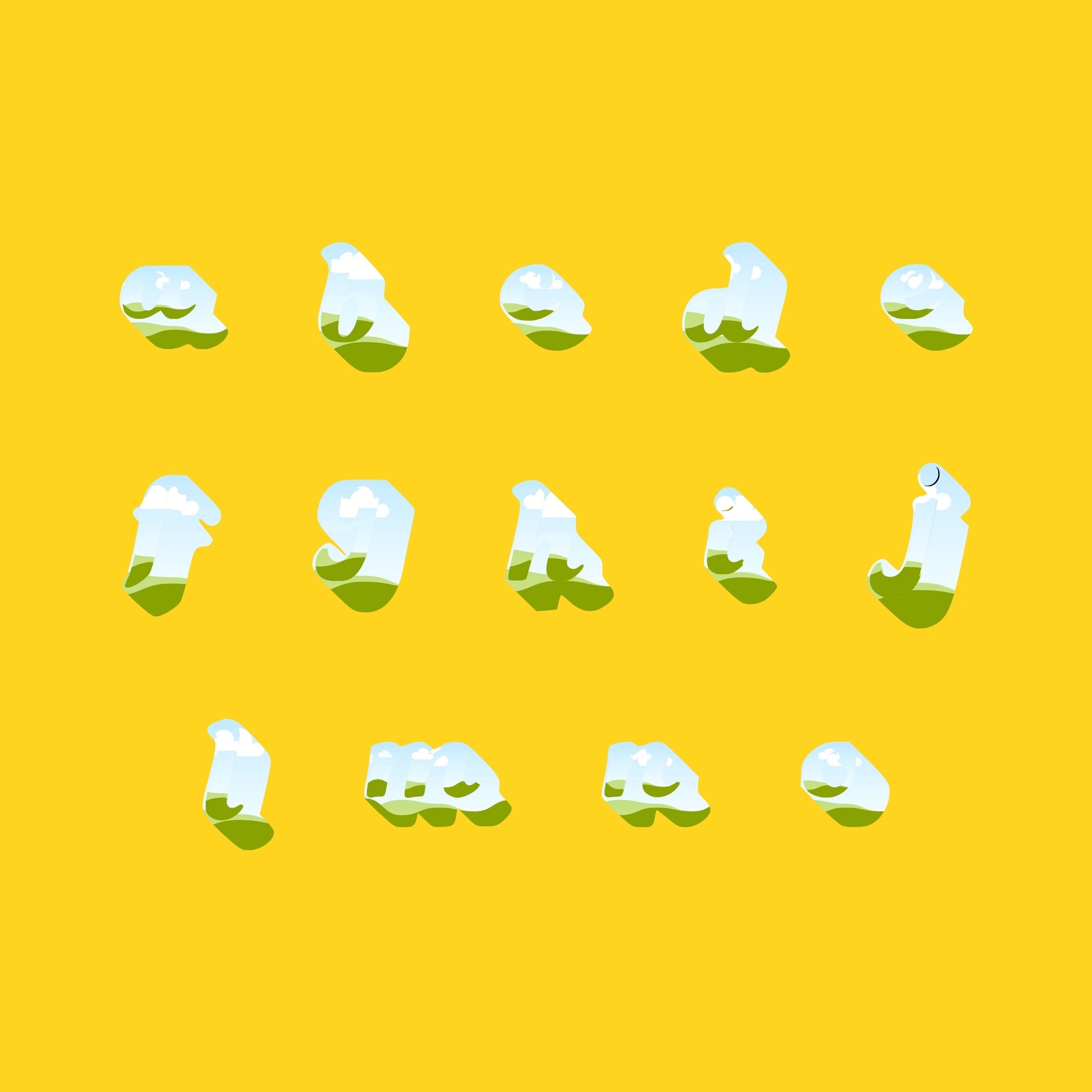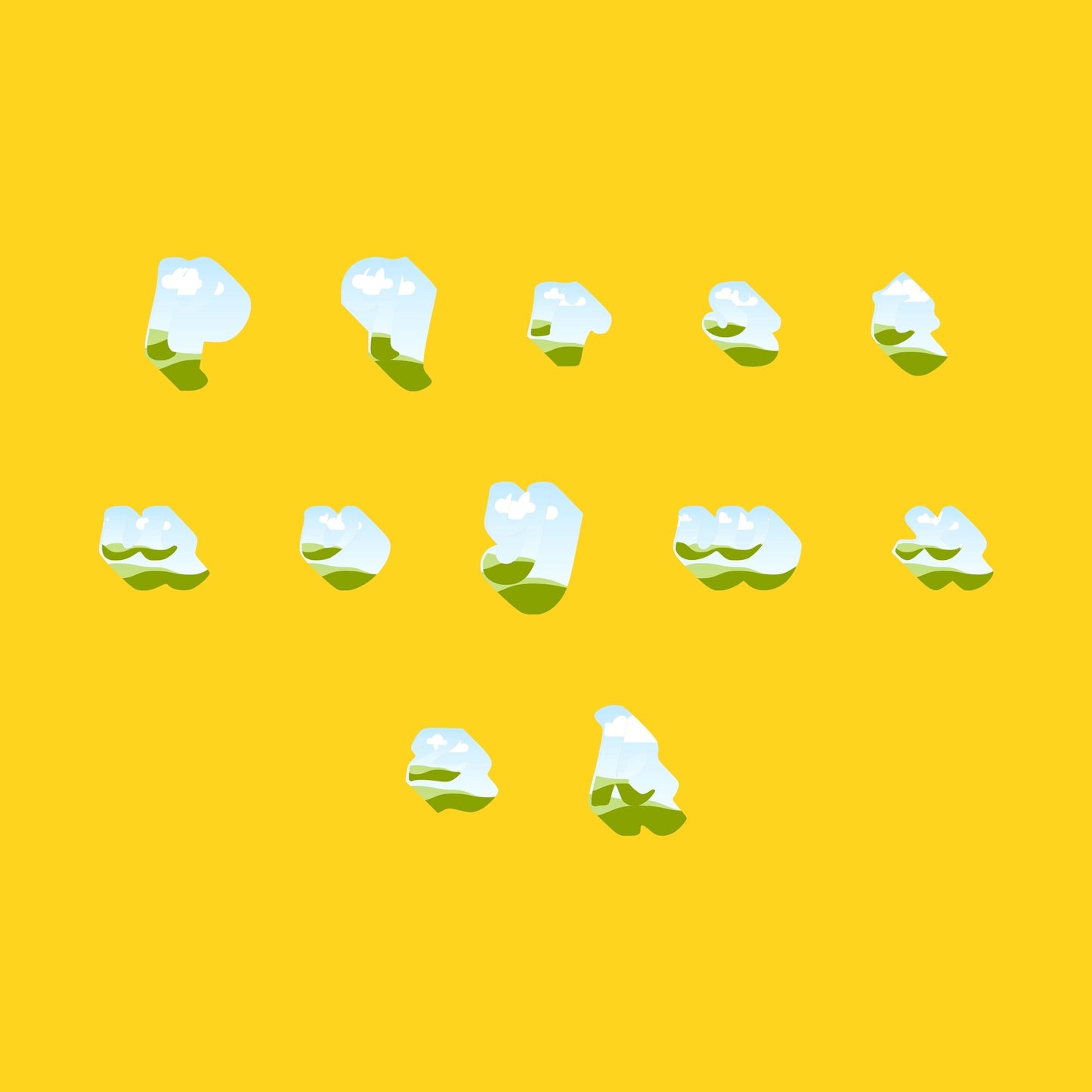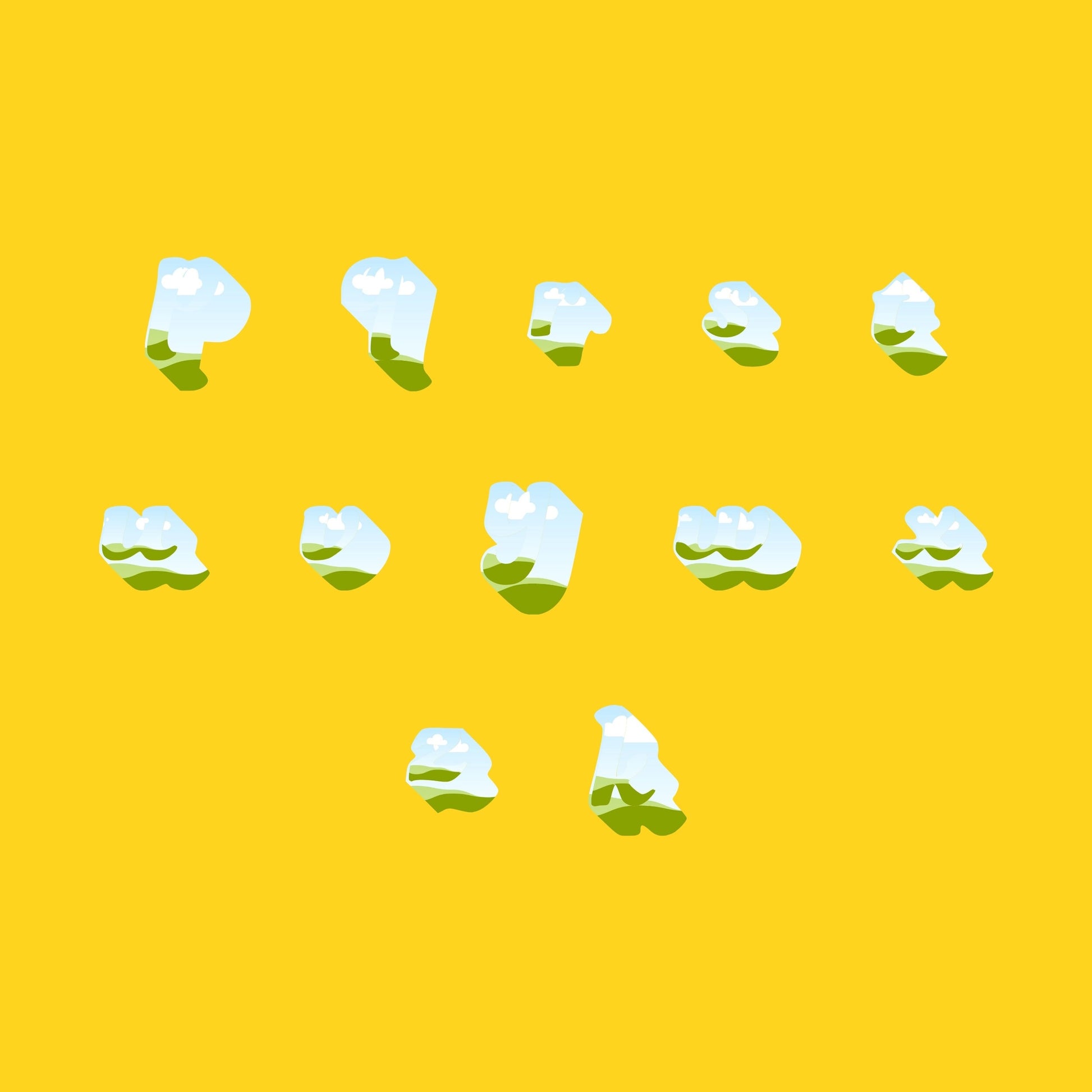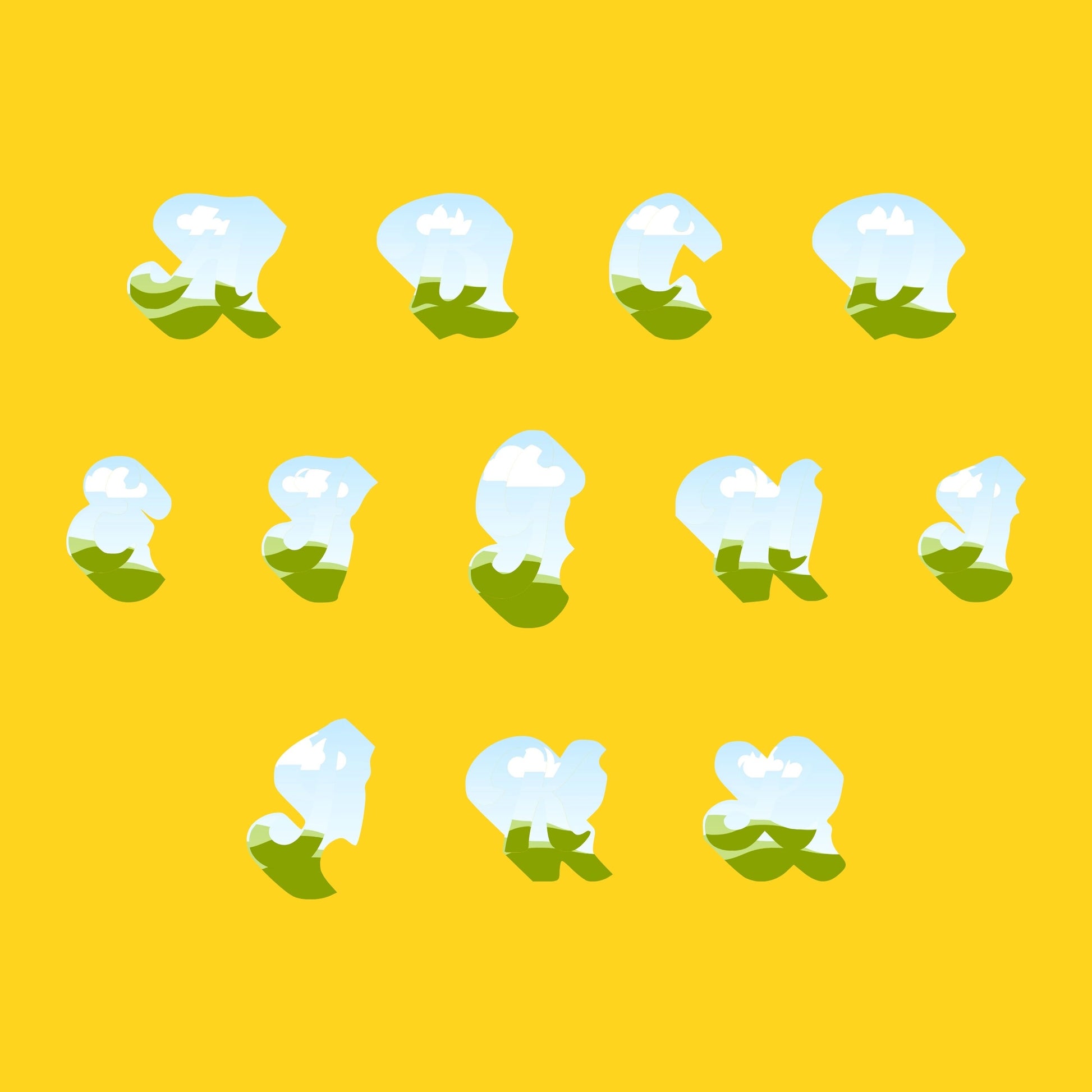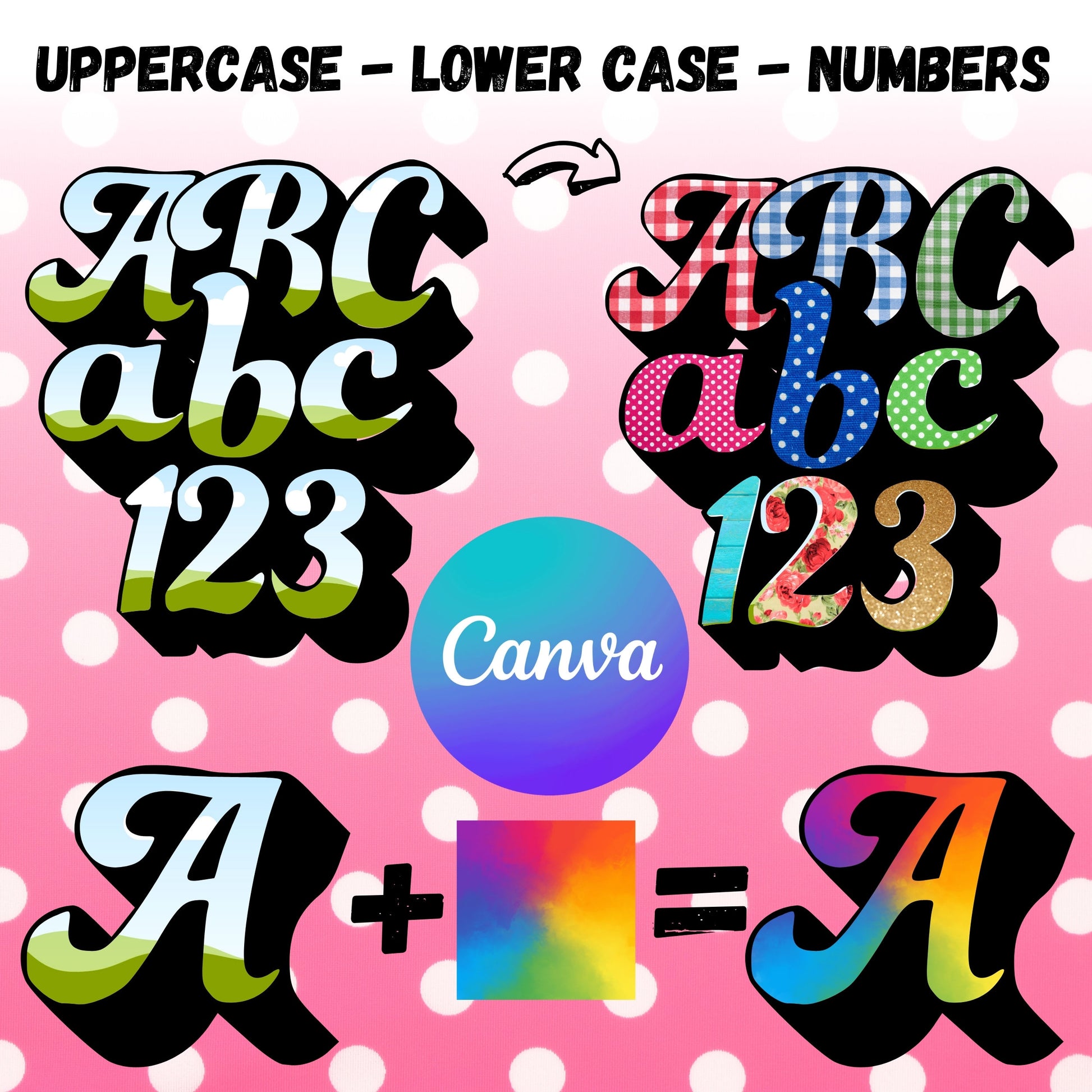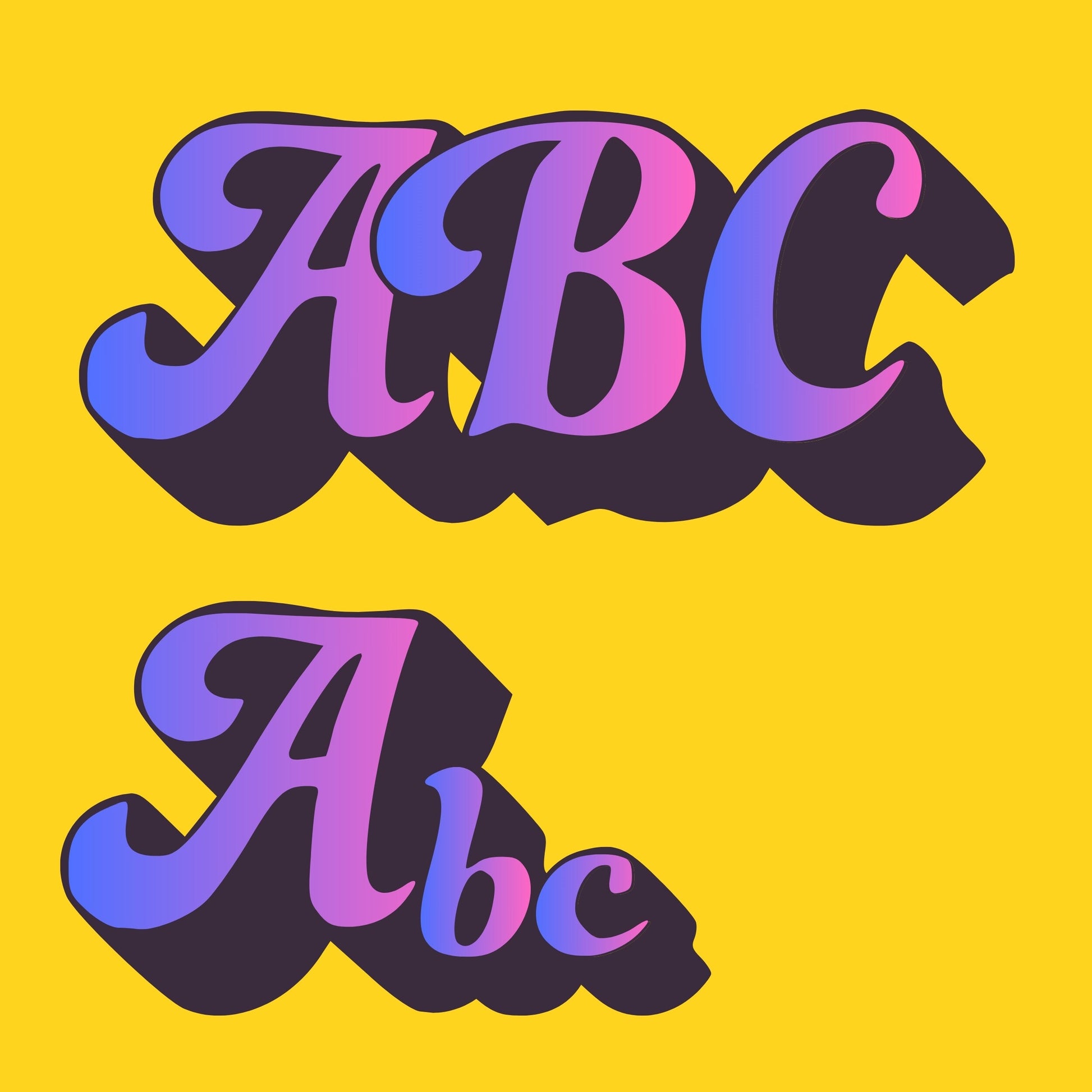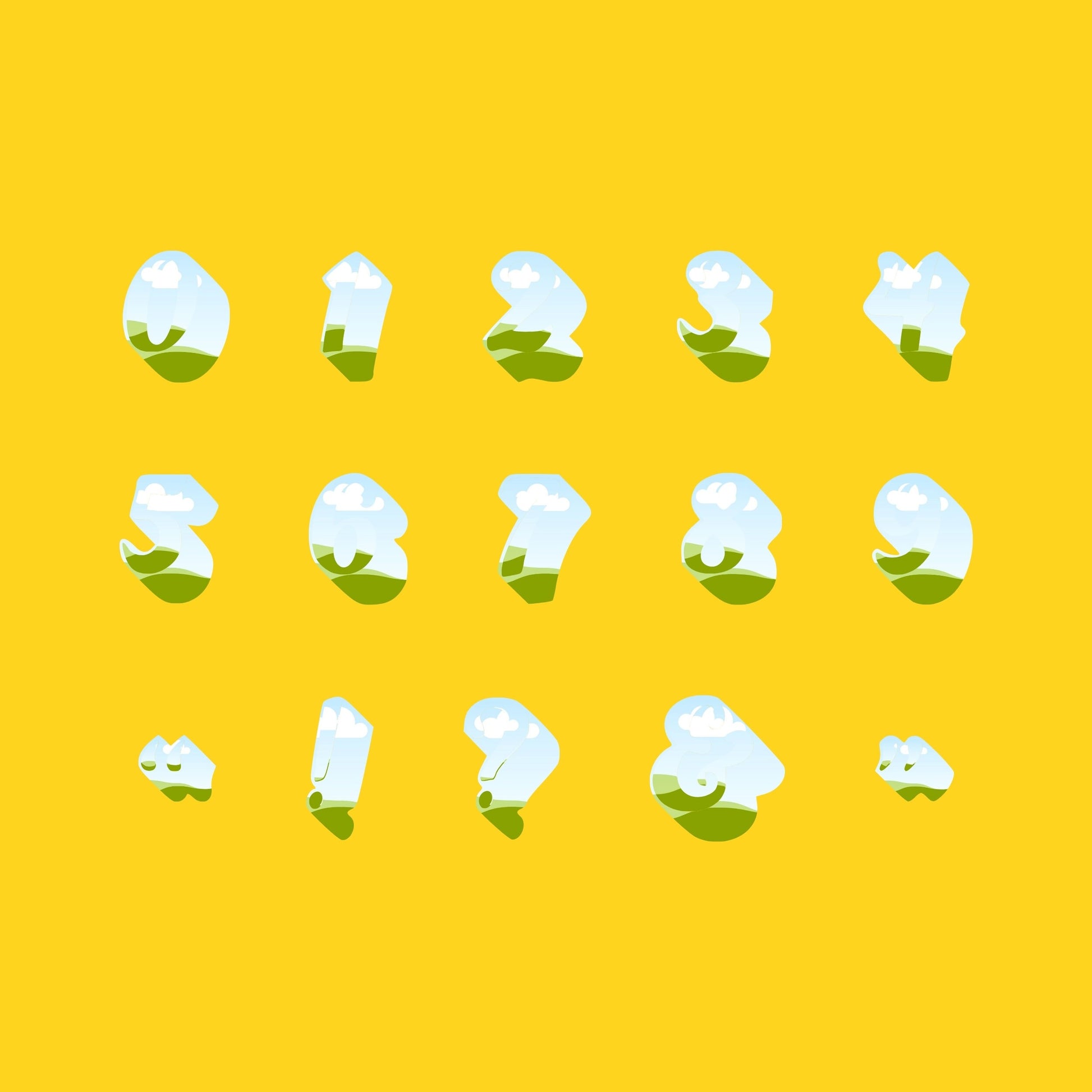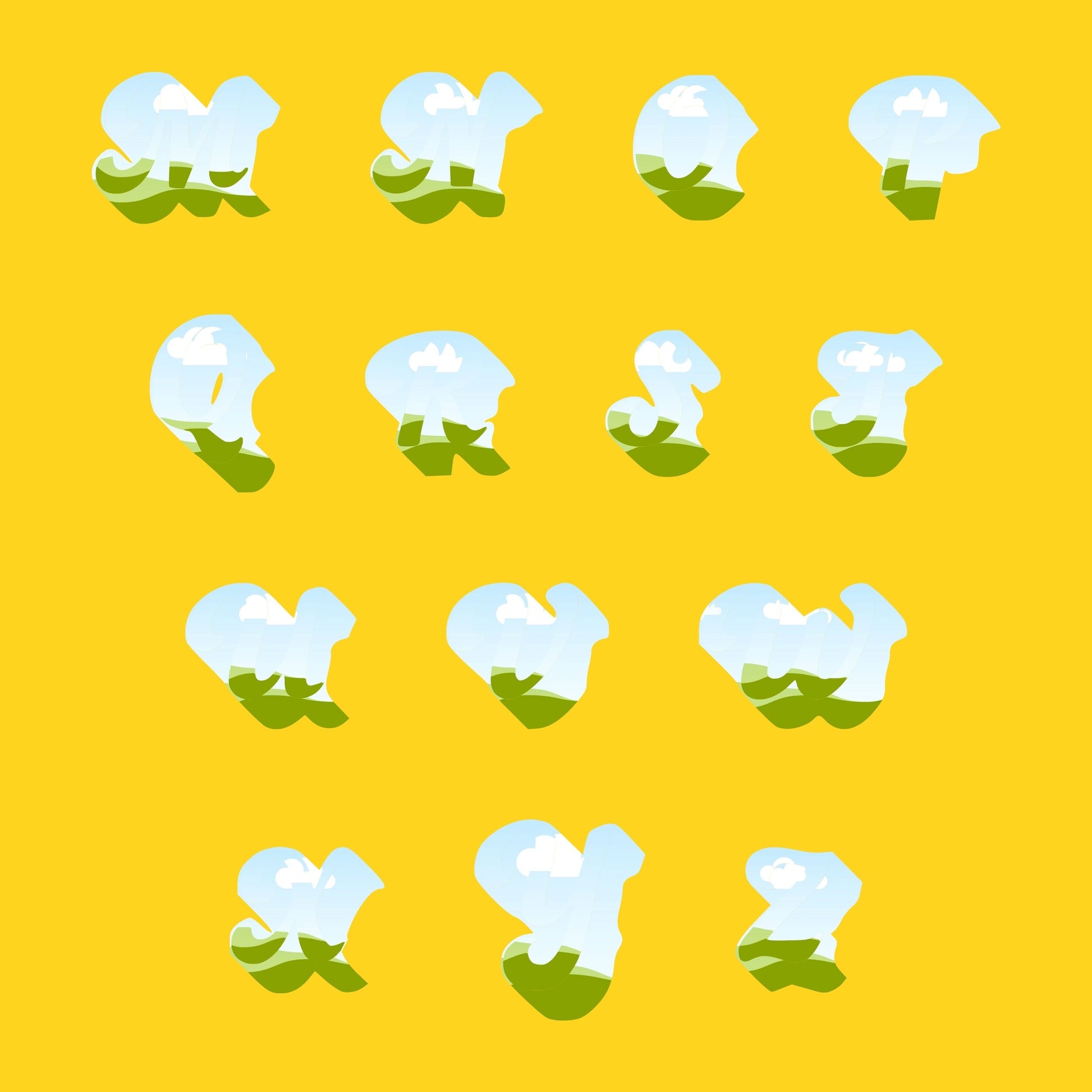
Letter Canva Frames - Drag and Drop Frames - Groovy Retro Doodle Fillable Alphabet Font Letters PNG Canva Frame Alphaset Doodle Templates
Alphabet Canva Templates. Editable Canva frames for creating custom letters. Can be filled with any image or color to create unique designs. Drag and Drop images, or highlight and select a color in Canva, to fill and customize these editable frames.